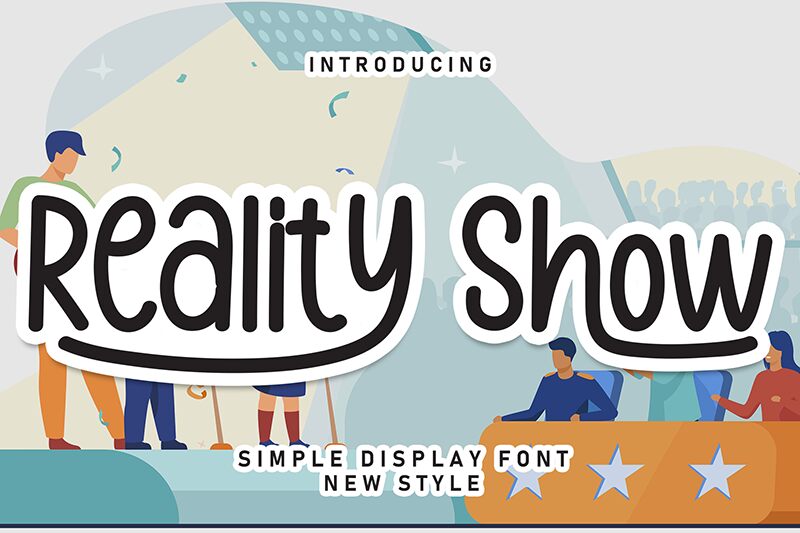
Reality Show
Reality Show font by Andi Moz is a quirky and informal script font that draws influences from geometric shapes to create a combination of casual aesthetics and friendliness. The writing looks consistent, beautifully joined, and pleasing to the eyes. Some of the important characteristics of this free school font are its modern vibe and special appeal.
Get your designs out with Reality Show’s handwriting that is perfect for comic dialogues, yearbooks, notebooks design, action plans, children’s presentations, or book covers. The copy works for project documentation as well such as banners’ design ideas or another research draft.